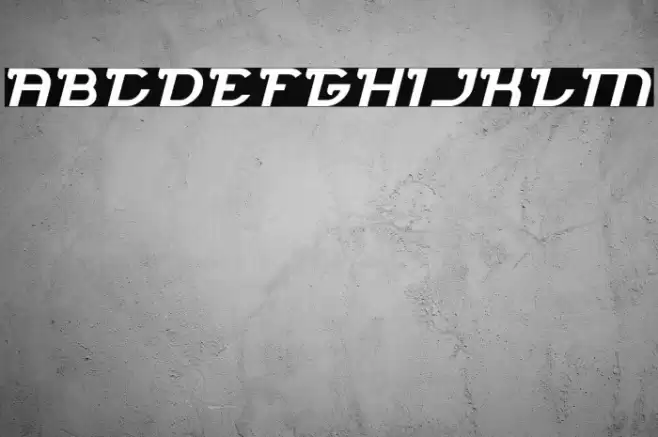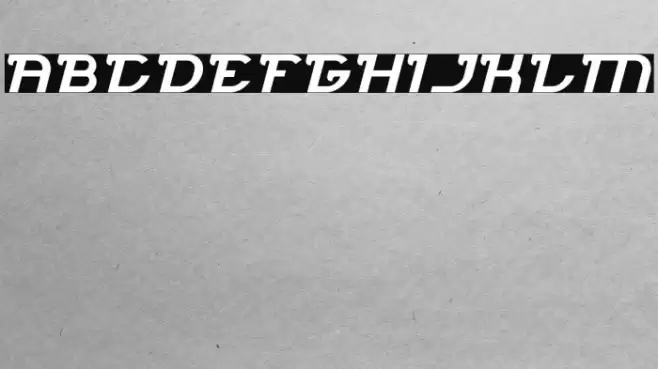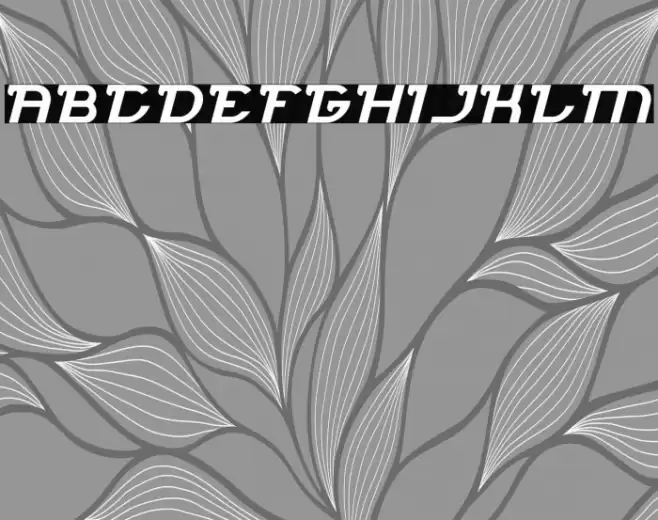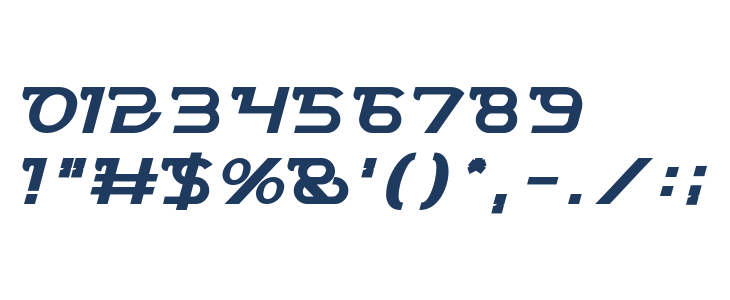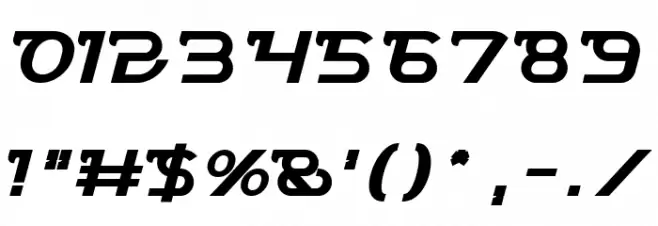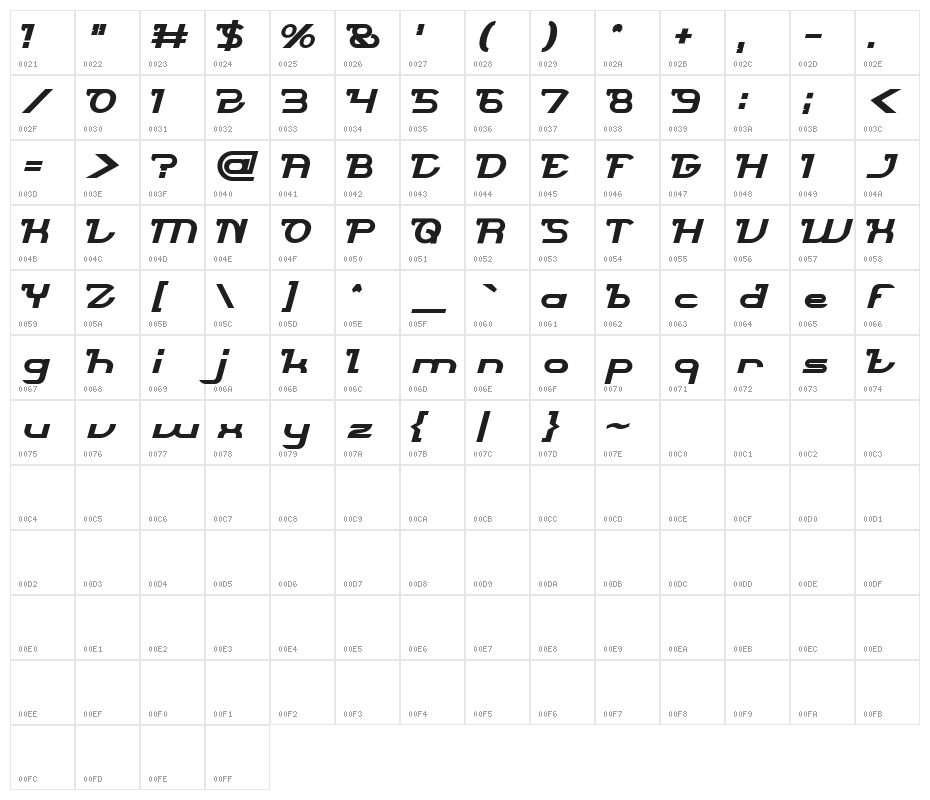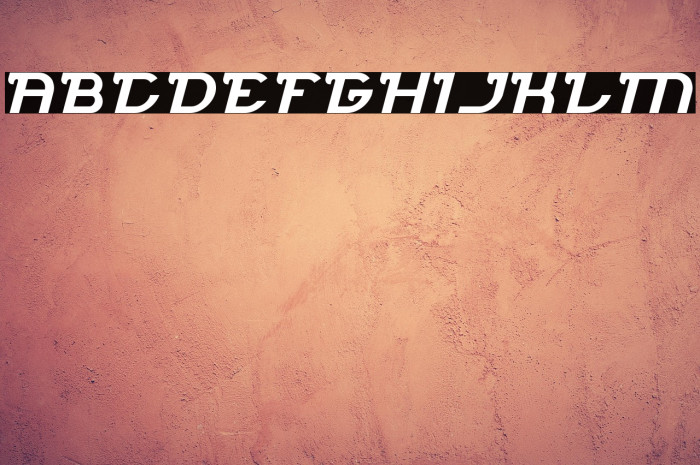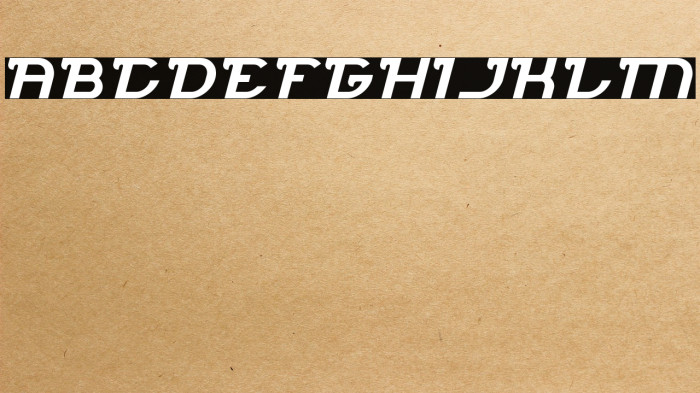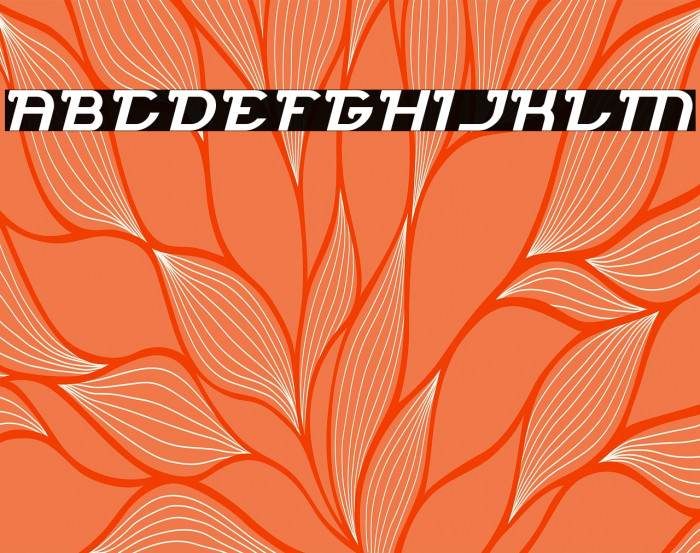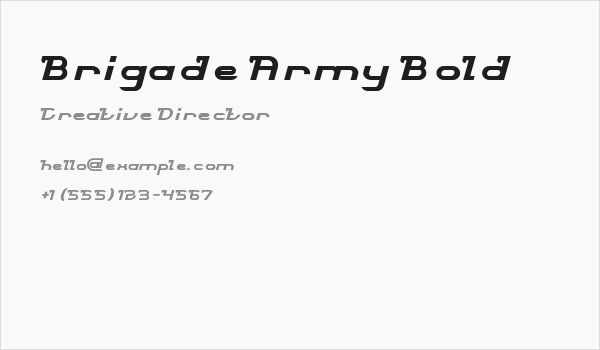
Brigade Army Bold Font
Brigade Army Bold Description
This font exhibits a bold and dynamic style, characterized by its slanted, italicized letters that convey a sense of movement and energy. The uppercase and lowercase letters maintain a consistent slant, enhancing the font's cohesive appearance. The characters are well-defined with sharp edges and a geometric structure, giving it a modern and robust look. The numbers and special characters follow the same stylistic approach, ensuring uniformity across all elements. This font's boldness and unique style make it stand out, making it suitable for projects that require a strong visual impact.
A bold, slanted font with a modern, geometric style from Uncategorized fonts.
- Font: Brigade Army Bold
- Proposed Projects: Ideal for branding, posters, headlines, and any design needing a strong, dynamic presence.